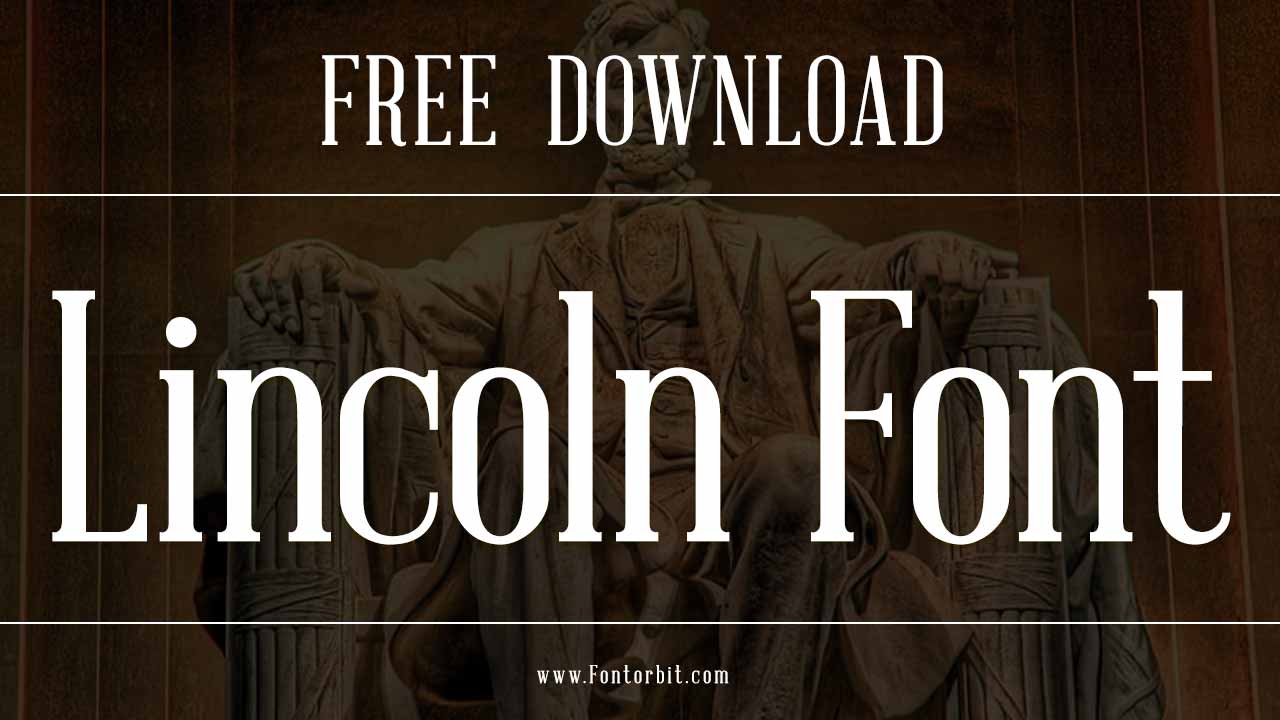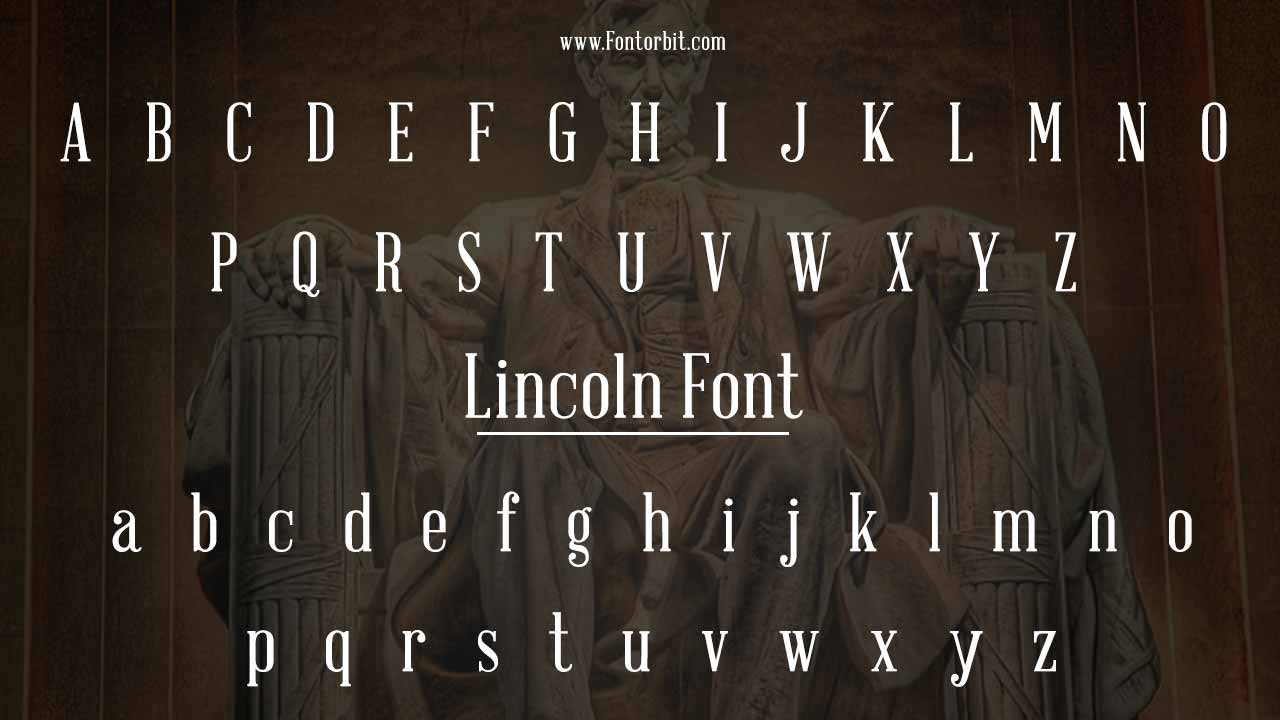
Designed by Frances MacLeod, the Lincoln font family is a masterful combination of tradition and modernity. This typeface is ideal for everything from printed materials and logos to advertising and personal design projects. Whether you’re working on a sophisticated branding initiative or a creative personal project, this versatile font ensures your designs are timeless and functional.
Features Of The Lincoln Font Family
The Abraham Lincoln font family offers more than just style. It provides flexibility for various design needs. Let’s break down the unique features and how this font stands out:
| Feature | Details |
| Font Style | One Style – Simple and Elegant |
| Primary Typeface | Sans-serif with Sturdy Serifs |
| Designer | Frances MacLeod |
| Type | Modern and Elegant with Historical Touches |
Why Choose The Lincoln Font?
Whether you are designing for Lincoln Realtors or a Franklin Educator project, the Lincoln font ensures your text remains clear and striking. The font’s influence stems from old school calligraphy fonts but with a contemporary edge, giving it timeless appeal. Here’s why it’s a great choice:
- Versatility: Works well in various applications, including logos, printed materials, and advertising.
- Elegant Design: Combines modern typeface structure with a subtle old English influence.
- High Readability: Features sturdy serifs that make it legible in small caps and large headers.
- Global Use: The character map supports numerous languages, making it adaptable to various international projects.
Uses Of The Lincoln Font Family
The Lincoln Font Is Perfect For Both Personal And Professional Projects, Including:
- Logo Design: Ideal for creating iconic logos for businesses, schools, or local projects like Lincoln public schools.
- Print and Digital Advertising: This font adds professionalism to advertising materials from flyers to online ads.
- Branding: A great choice for creating a memorable and classic brand identity, especially for companies in historical, educational, or real estate sectors like Lincoln Realtors or Eastern Nebraska businesses.
- Personal Use: You can also use it in personal projects such as invitations, greeting cards, etc.
Why It Works In Design Projects
The Lincoln font offers timeless quality while remaining versatile enough for modern needs. Whether you’re using it for typewriter font effects, retro font projects, or creating calligraphy fonts-inspired designs, its adaptability allows for use across various outputs, including SVG and PNG formats.
- Suitable for All Categories: Whether you’re working on a logo, a personal project, or a commercial design, it’s versatile enough to fit any occasion.
- Modern Yet Classic: The Lincoln font merges the old with the new, making it ideal for creating historical and contemporary designs.
2.Can The Lincoln Font Be Used For Logos? Yes! The Abraham Lincoln font is designed with elegance and readability in mind, making it a fantastic choice for logo creation. Its unique style works well for design projects in various industries, from Lincoln Realtors to Franklin Educator initiatives.
3.What Are Some Fonts Similar To Lincoln Font? If you’re seeking an alternative style but still want something similar to the Lincoln font, some great similar fonts include Miyanih, Geometria, and QEBIL. These script fonts and decorative fonts offer their own distinct flavor while maintaining the legibility and style of Lincoln font.
4.Is The Lincoln Font Suitable For Web Design? Absolutely! The Lincoln font works beautifully in modern fonts and offers great legibility for web design. Whether you are building a site for Lincoln County, eastern Nebraska, or a Lincoln public schools project, this font adds a professional and timeless touch to your digital platforms.
6.Can I Use The Lincoln Font For Printed Materials? Yes, the Lincoln font is ideal for printing on a wide variety of printed materials, including business cards, brochures, and posters. Its sturdy serifs and balanced proportions make it suitable for both calligraphy fonts and typewriter fonts in printed advertising materials.